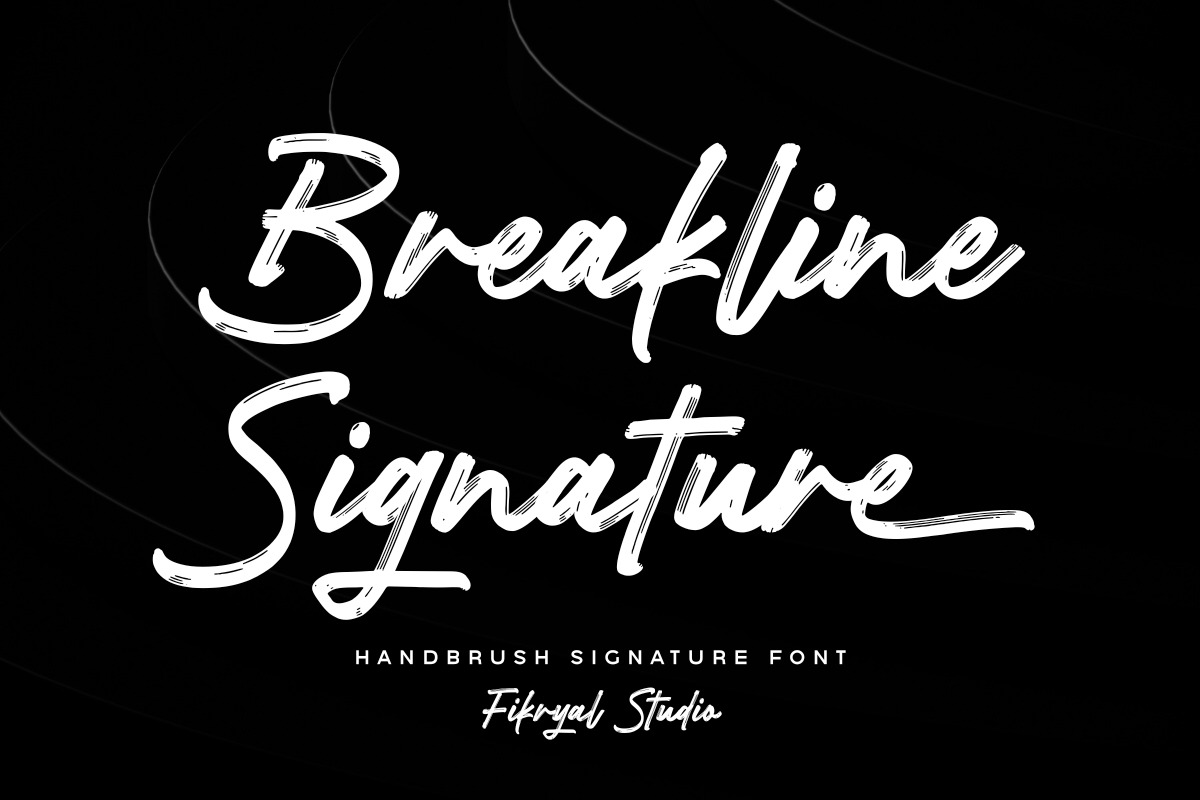
Breakline Signature Font
Breakline Signature Font brings a balanced structure and contemporary look, making it suitable for both digital and print design. Breakline Signature is a natural handbrush signature script font designed to bring an authentic handwritten feel into modern design. Inspired by real brush lettering, this font delivers smooth strokes, organic flow, and an elegant signature character.
It comes with stylistic alternates for beginning and ending letters, allowing you to create unique, dynamic, and personalized typography. Each word looks fluid and expressive, making your designs feel more premium and distinctive.